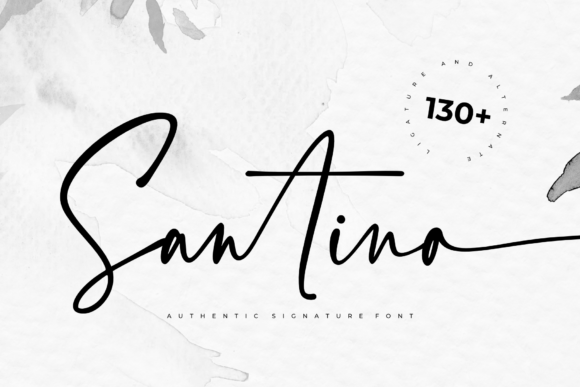
Introducing Santino Font, the Exquisite Script Font That Will Transform Your Designs
In a world of digital monotony, Santino Font emerges as a breath of fresh air, captivating hearts with its distinct and graceful script style. Its every curve and swirl is a testament to the art of penmanship, evoking a sense of timeless elegance that will elevate your designs to new heights.
Santino's enchanting allure lies in its ability to seamlessly blend classic charm with modern sophistication. Its meticulously crafted glyphs and swashes dance across the page like a symphony of ink, creating visual masterpieces that are sure to leave a lasting impression. Whether you're a seasoned designer or just starting your creative journey, Santino is the perfect font to add a touch of magic to any project.
Step into a world of endless possibilities with Santino. Its versatile nature makes it the ideal choice for a wide range of design projects. From medium-sized posters that demand attention to eye-catching social media graphics, Santino seamlessly adapts to your vision, transforming ordinary words into captivating works of art.
Unleash the boundless creativity within you. Santino's PUA encoding makes accessing all glyphs and swashes a breeze, giving you the freedom to explore a diverse range of design possibilities. Experiment with different combinations, let your imagination soar, and create designs that are uniquely yours.
With Santino as your creative companion, you'll discover a newfound joy in the art of design. Its enchanting style will captivate your audience, leaving them spellbound by the beauty of your creations. Embrace the power of Santino and embark on a journey of artistic excellence that will leave an unforgettable mark on the world of design.